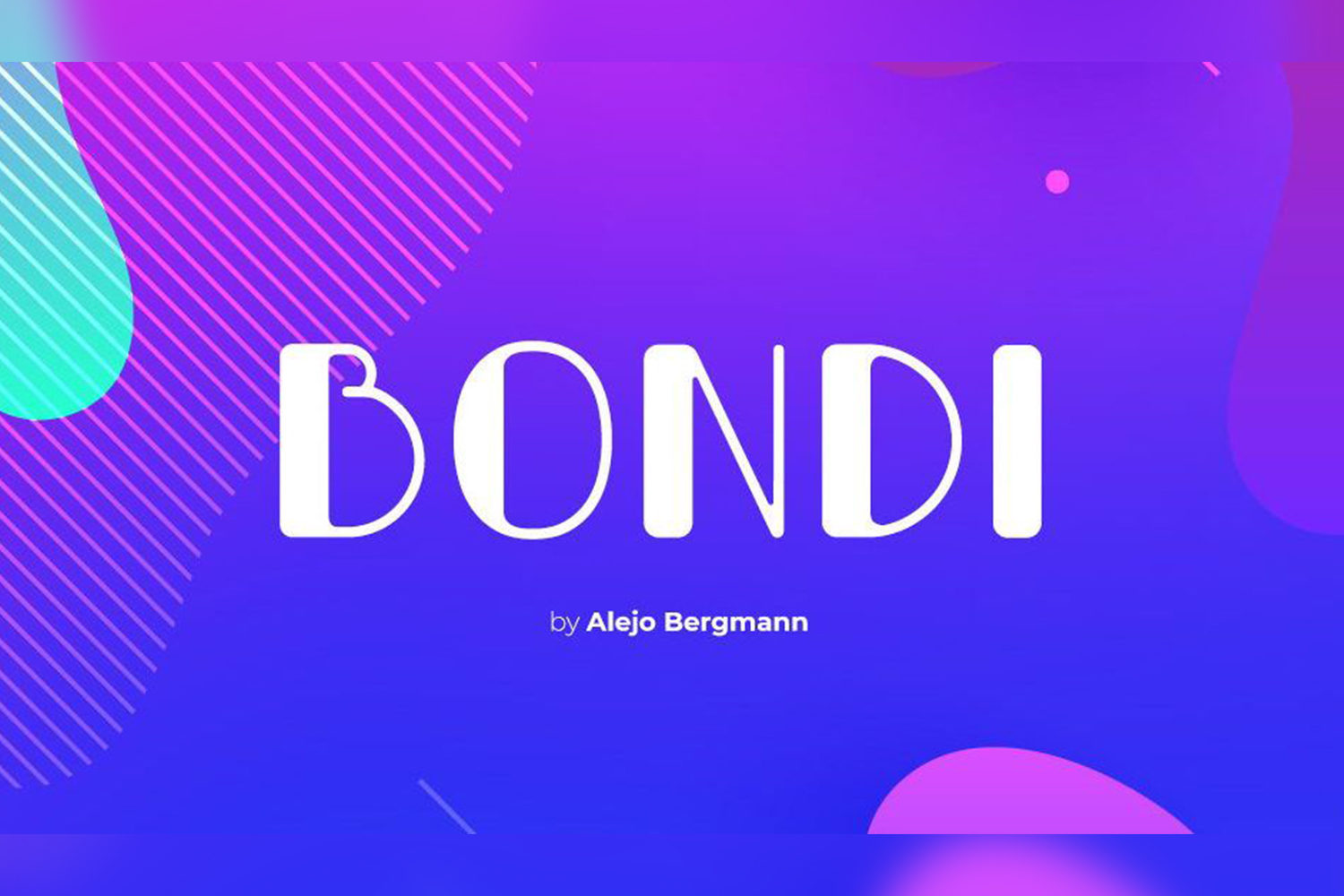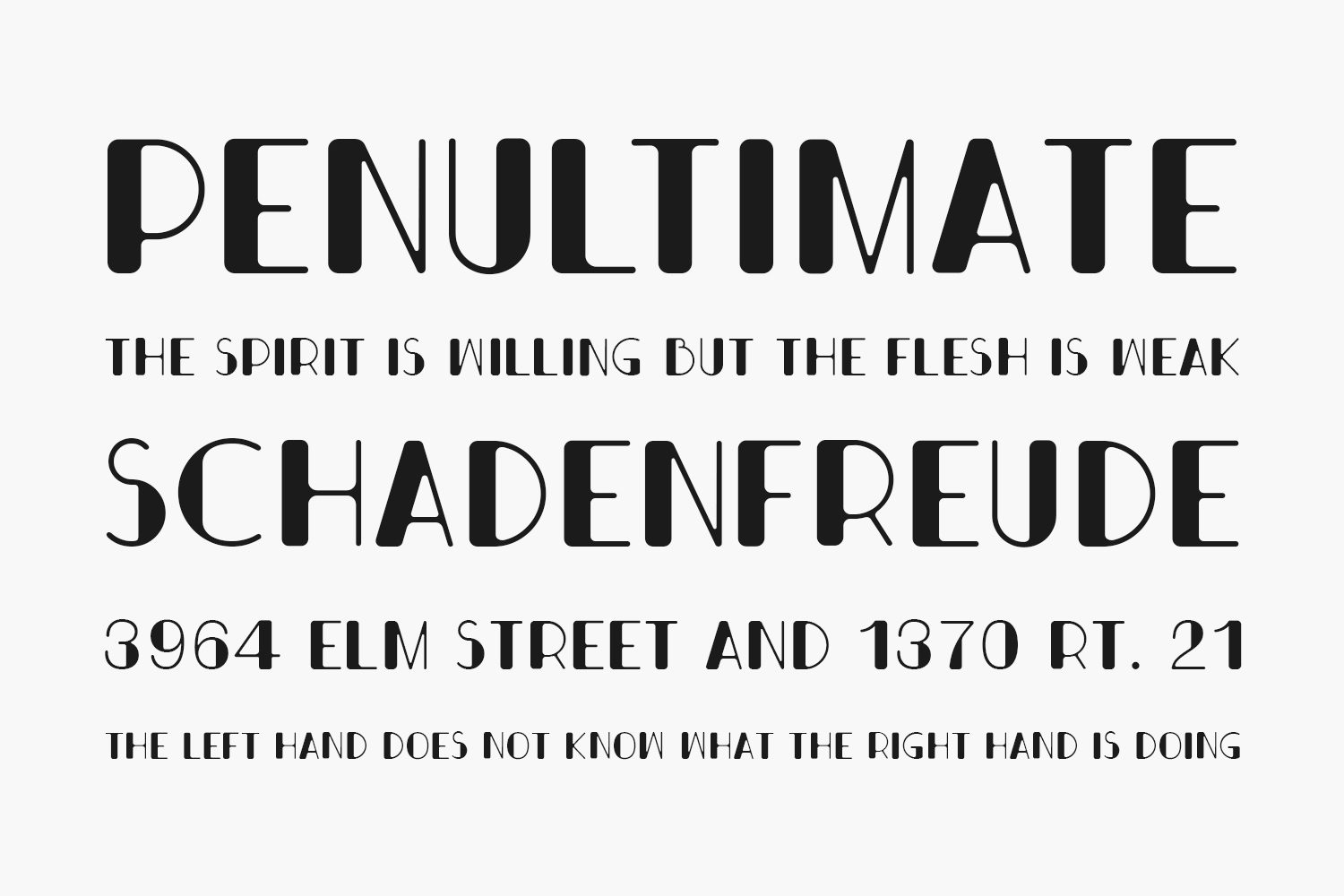
Bondi contains all caps letters, numerals and symbols and it is perfectly suites for variety display purposes, including logotypes, badges and labels.
Designed by Alejo Bergmann